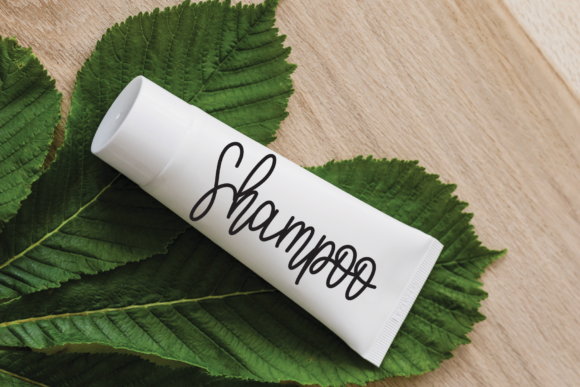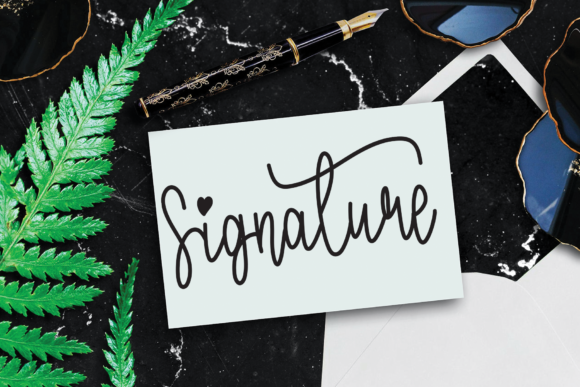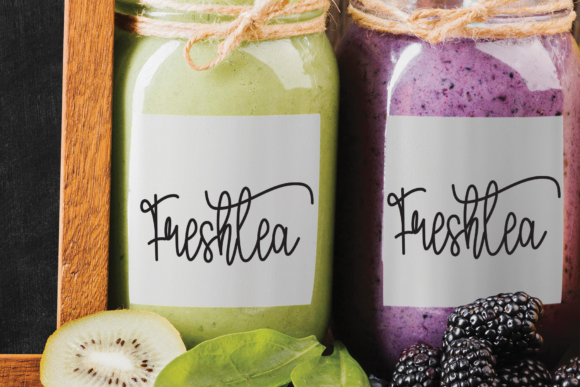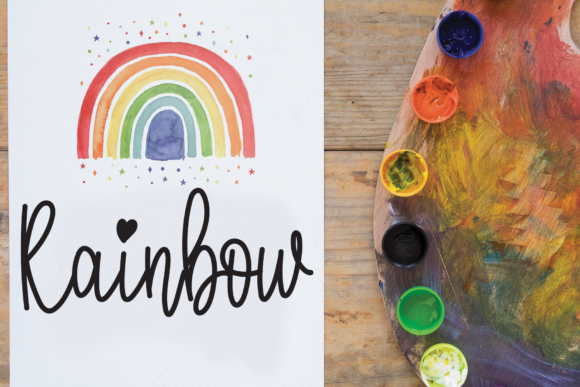
The Whimsy of Handwritten Typography
Have you ever found yourself scribbling down a beautiful quote in a notebook, only to realize that the imperfect, handwritten font adds a touch of magic to the words? That’s the exact feeling that designers aim to capture with the Butterfly Font.
This charming script font is designed to evoke a sense of elegance and sophistication, making it perfect for wedding invitations, thank-you cards, and any other design that requires a handwritten touch. With its delicate flourishes and flowing lines, Butterfly Font is a valuable asset for designers looking to add a touch of whimsy to their work.
Key Features of Butterfly Font
- Unique Characteristics: Features a whimsical and elegant design with intricate details and a delicate touch, making it perfect for creative and artistic projects.
Butterfly Font Review
First impressions count, and the Butterfly Font does just that. The whimsical and playful design ✨ immediately catches the eye. The use of rounded edges and delicate curves adds a touch of elegance, making it perfect for designs that need a soft and romantic feel.
When used correctly, the Butterfly Font can add a sense of sophistication and refinement to any project. The font’s unique character set includes a wide range of symbols and icons, which can be useful for designers looking to add a personal touch to their work.
However, the Butterfly Font also has some limitations. ⚠️ For one, it can be a bit difficult to read in smaller font sizes, which may limit its use in certain applications. Additionally, the font’s complexity can make it a bit slow to load in some systems.
Overall, I would give the Butterfly Font a solid 4 out of 5 stars. It’s a beautiful and unique font that can add a lot of character to a design. However, its limitations should be taken into consideration when deciding whether or not to use it.
- Pros:
- Unique and whimsical design ✨
- Perfect for designs that need a soft and romantic feel
- Wide range of symbols and icons available
- Cons:
- Difficult to read in smaller font sizes ⚠️
- Complexity can cause slow loading times
Tips for Getting the Most Out of the Butterfly Font
Experiment with different font sizes and colors to create a visually appealing design. Use the Butterfly Font in combination with other fonts to add contrast and interest. Consider using the font in a cursive or script style to add a touch of elegance to your design.
The Butterfly Font is ideal for wedding invitations, baby shower invitations, and other special occasion invitations. It’s also great for creating a whimsical or playful atmosphere in your design.
Alternatives to Butterfly Font
Great Vibes is a beautiful, cursive script font perfect for adding a touch of elegance and sophistication to your designs. It’s ideal for use in invitations, wedding stationery, and other formal events where a elegant, handwritten look is desired.
Compared to Butterfly Font, Great Vibes has a more refined and polished look, making it suitable for more formal designs. While Butterfly Font has a playful, whimsical feel, Great Vibes is more subdued and sophisticated.
Crimson Text is a serif font with a classic, elegant feel that’s perfect for use in body text and headings. It’s ideal for use in publications, magazines, and websites where a professional, yet approachable look is desired.
Compared to Butterfly Font, Crimson Text has a more formal and traditional look, making it suitable for use in a wide range of designs. While Butterfly Font is more playful and decorative, Crimson Text is more understated and elegant.